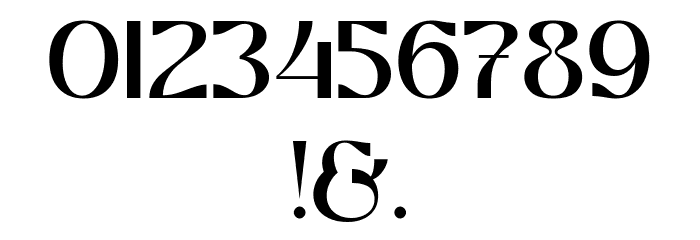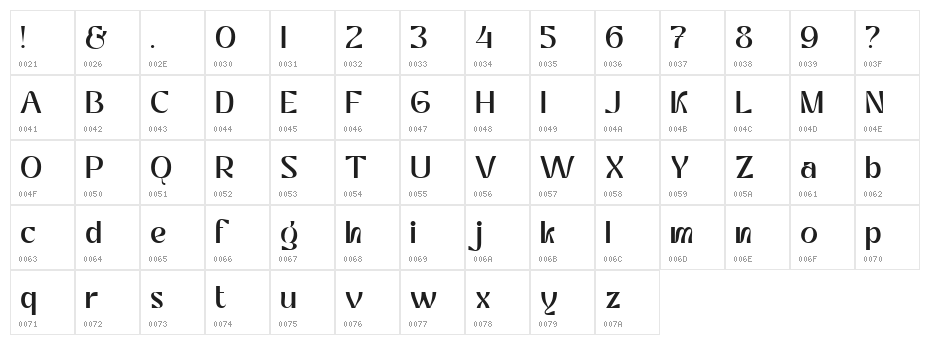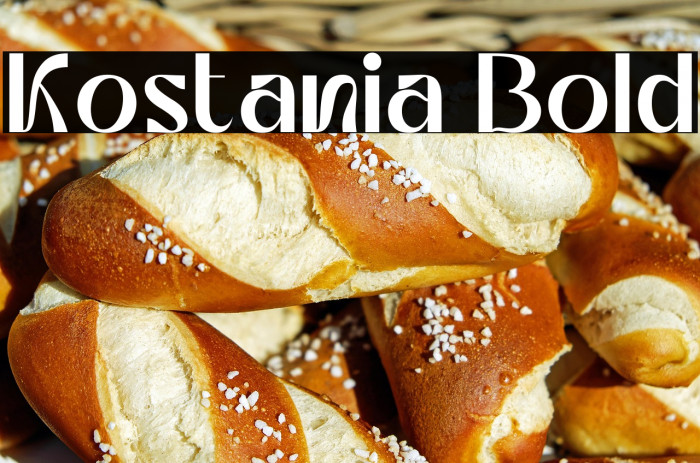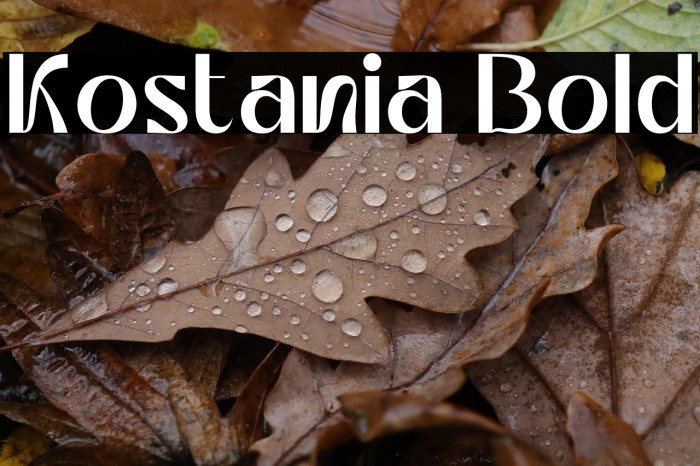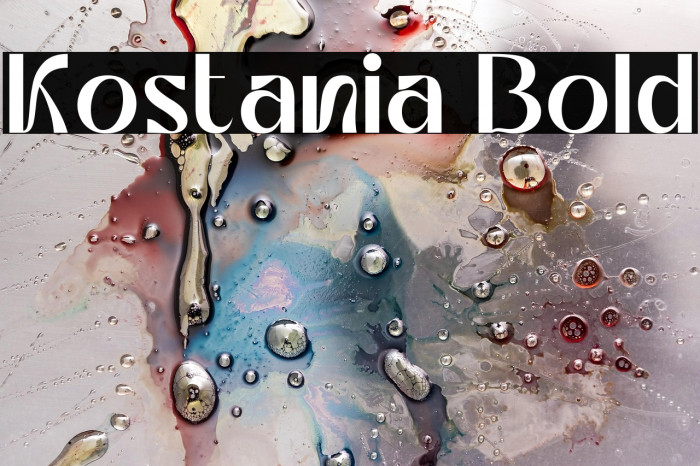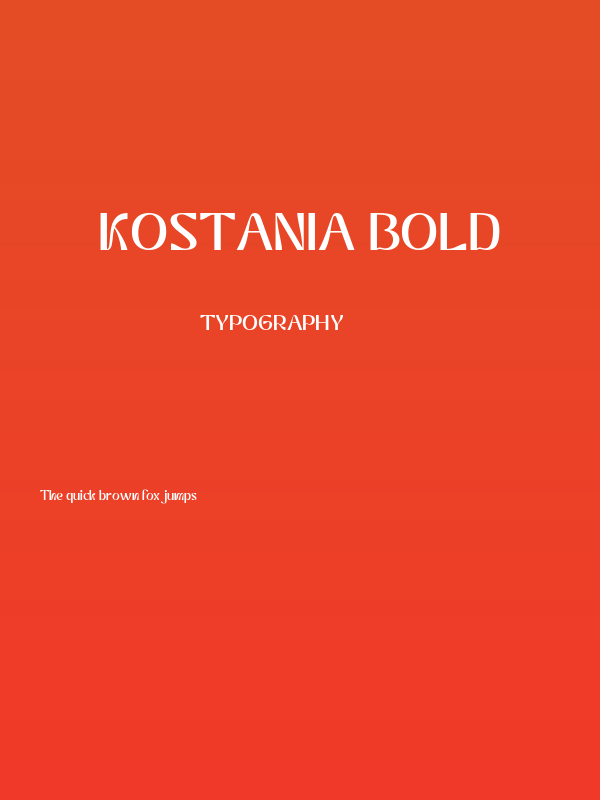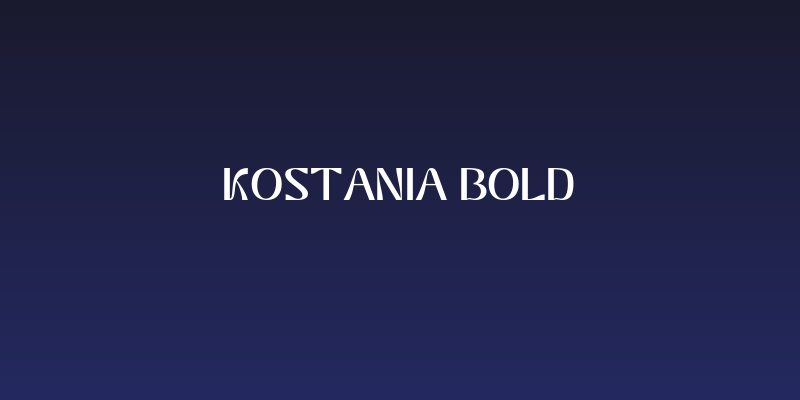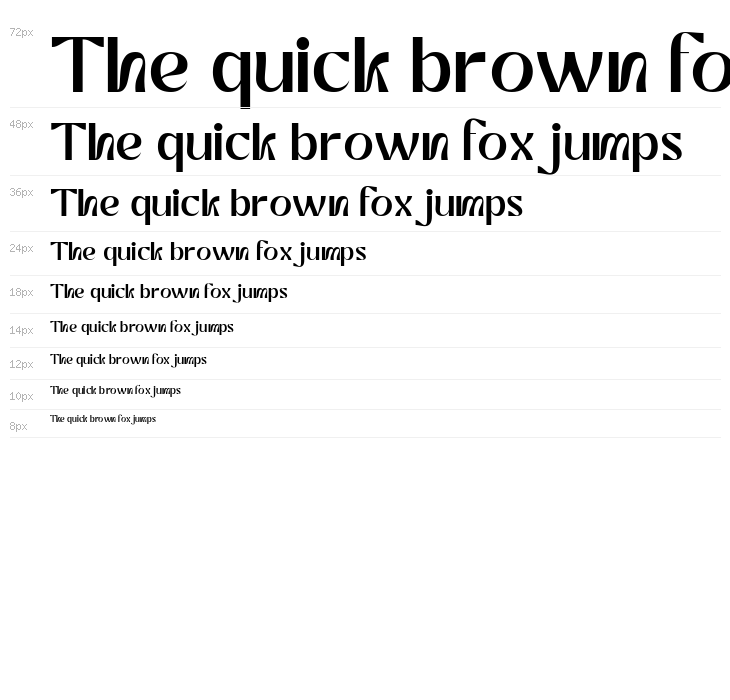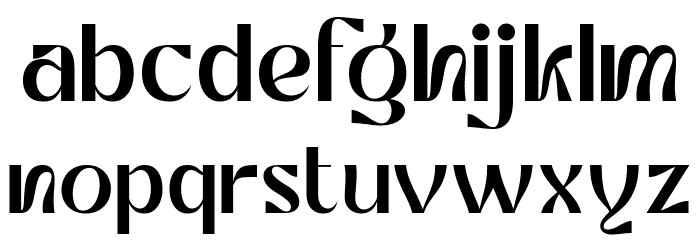
Kostania Bold Font
Kostania Bold Description
This font features a bold and striking design with a unique blend of modern and vintage elements. The characters are crafted with a high contrast in stroke thickness, giving them a dynamic and eye-catching appearance. The uppercase letters exhibit a distinct geometric influence, while the lowercase letters maintain a more fluid and organic form. The numerals are consistent with the overall style, offering a cohesive look across all characters. Special characters like the ampersand and exclamation mark are designed with the same attention to detail, ensuring they stand out while remaining harmonious with the rest of the font.
| Proposed Projects | Ideal for branding, poster design, and editorial headlines where a bold statement is needed. |